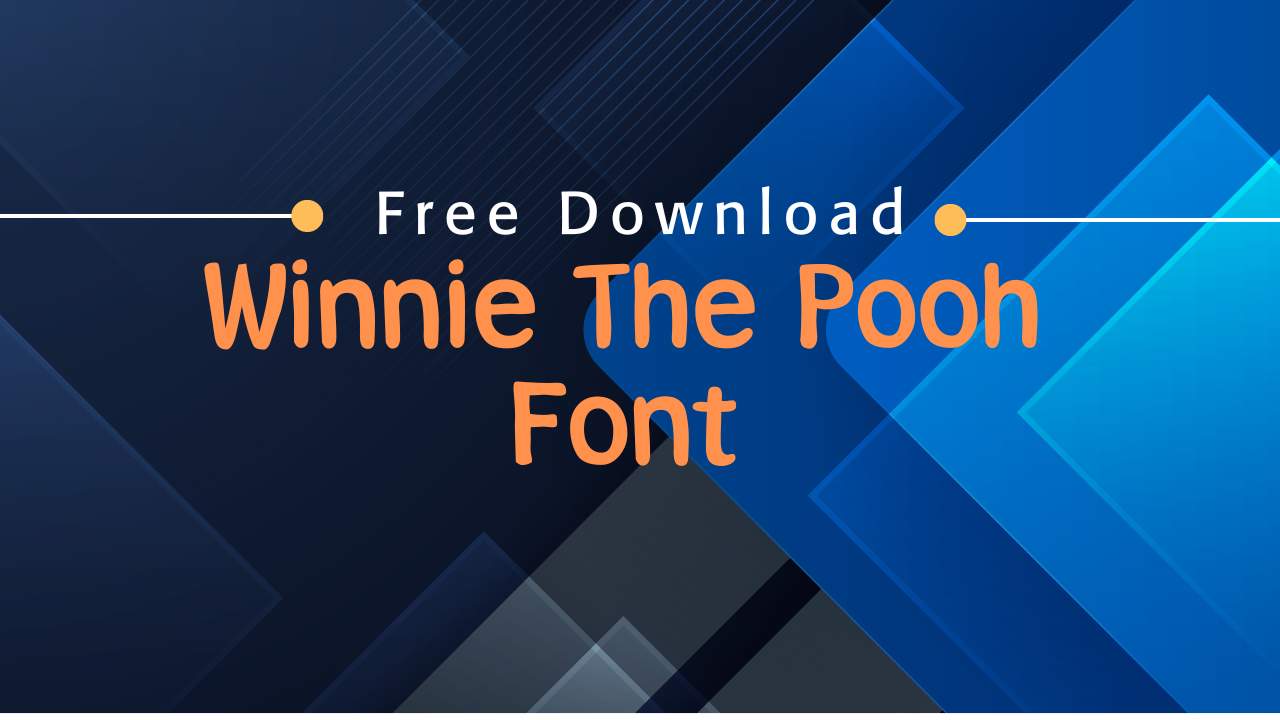
The Winnie the Pooh Font, inspired by the playful and beloved character created by A. A. Milne, embodies the whimsical and charming style of the Hundred Acre Wood. While the original Pooh logo was custom-designed, the Piglet font by FG Studios closely resembles its style, adding a touch of nostalgia and fun to various personal projects.
Winnie The Pooh Font Information
| Name | Winnie the Pooh Font (Piglet font) |
| Style | Display / Handwritten |
| Designer | FG Studios |
| Type | Whimsical Hand-drawn |
Winnie The Pooh Font Family Includes
- Piglet Regular
- Winnie the Pooh Regular
- Winnie the Pooh Bold
- Winnie the Pooh Italic
- Winnie the Pooh Light
- Winnie the Pooh Script
Where Winnie The Pooh Font Is In Use
The Piglet font infuses a touch of the Hundred Acre Wood into various creative projects. It is perfect for personal projects such as themed art, invitations, and crafts that capture Winnie the Pooh’s whimsical spirit. The font also enhances children’s materials like educational resources and storybooks with its playful charm. Additionally, it adds a delightful touch to party invitations and themed events, celebrating the nostalgic allure of Winnie the Pooh.
1. What Are The Different Weights Available For The Winnie The Pooh Font?
The Piglet font typically comes in a single weight, Regular, to replicate the playful and whimsical nature of the original design.
2. How Does The Winnie The Pooh Font Compare To Other Similar Fonts?
Piglet features a whimsical hand-drawn style that distinguishes it from other playful fonts like “Comic Sans” or “Bradley Hand,” capturing the unique charm of Pooh.
3. What Font Is Winnie The Pooh?
The original Winnie the Pooh logo uses custom hand-drawn lettering; the closest similar font is “Piglet” by FG Studios.
4. What Is The Winnie The Pooh Font Called?
The closest font to the Winnie the Pooh logo is called “Piglet” by FG Studios.
6. What Are The Most Common Misconceptions About The Winnie The Pooh Font?
Common misconceptions include assuming Piglet is an official font or that it replicates the original precisely.
7. What Are The Best Ways To Showcase The Winnie The Pooh Font In A Portfolio?
Use it in themed projects like children’s books, invitations, or educational materials to highlight its playful and whimsical style.
8. What Are The Key Differences Between The Winnie The Pooh Font And Other Similar Fonts?
The Piglet font features whimsical, hand-drawn characteristics, distinguishing it from more standardized playful fonts like Comic Sans.